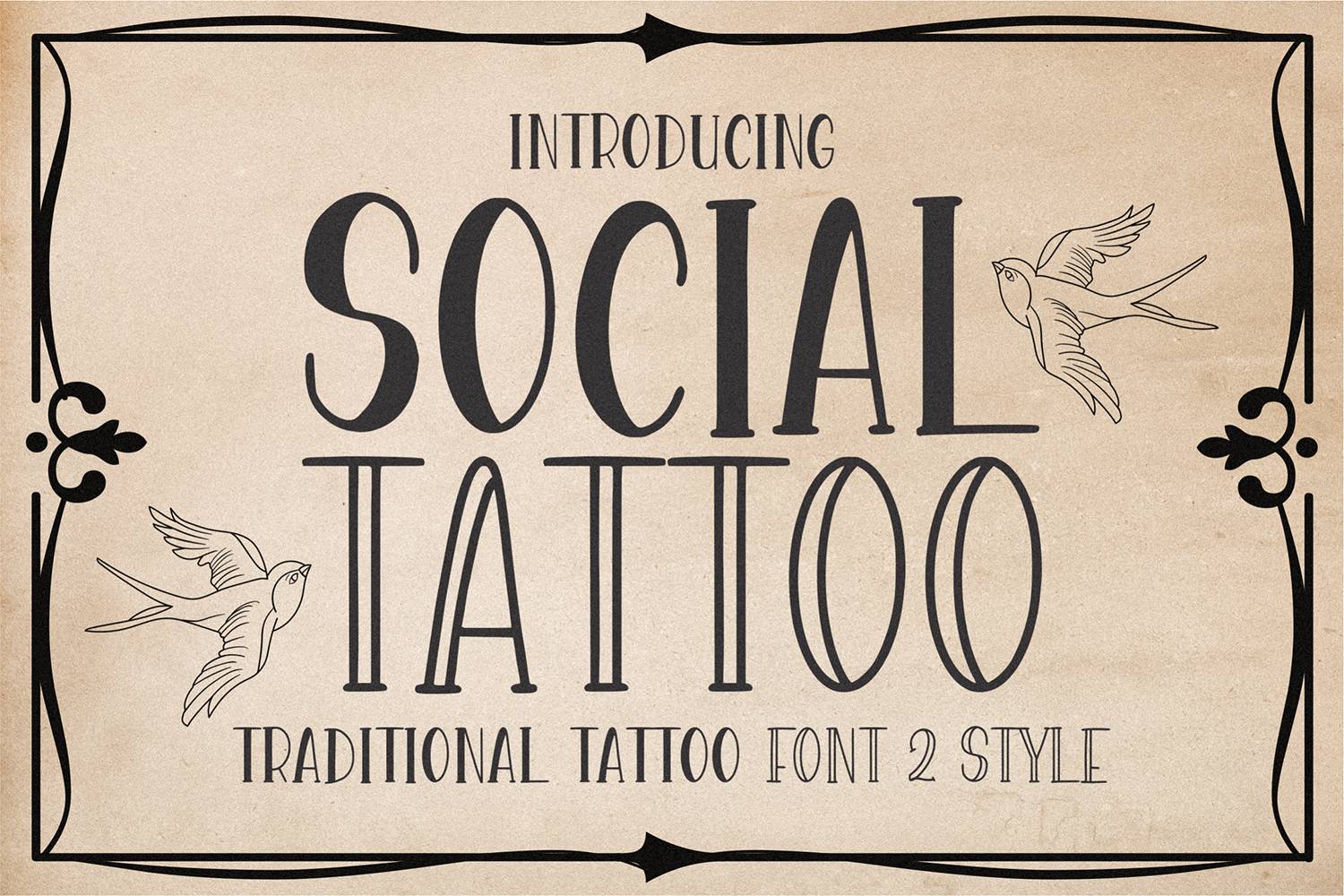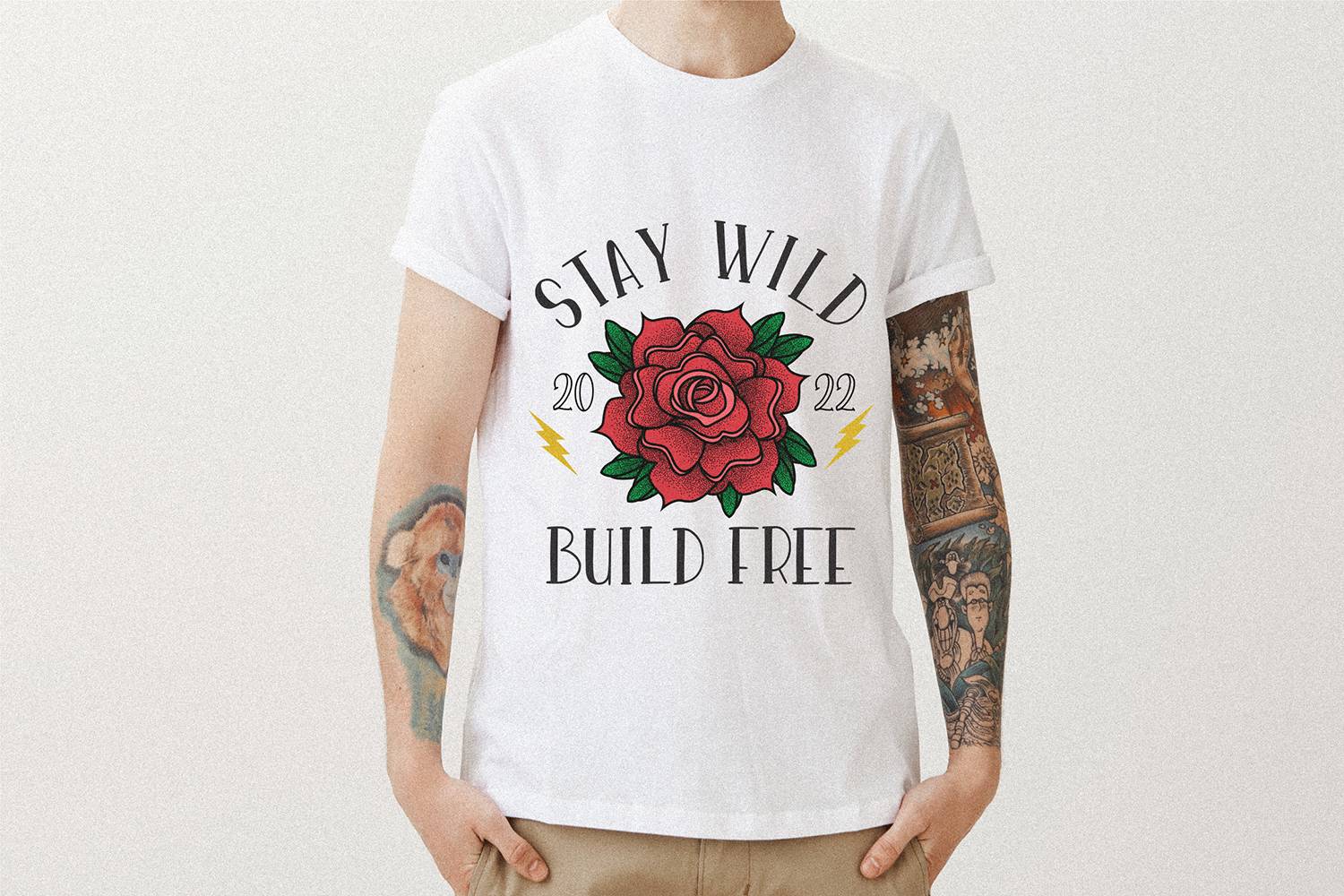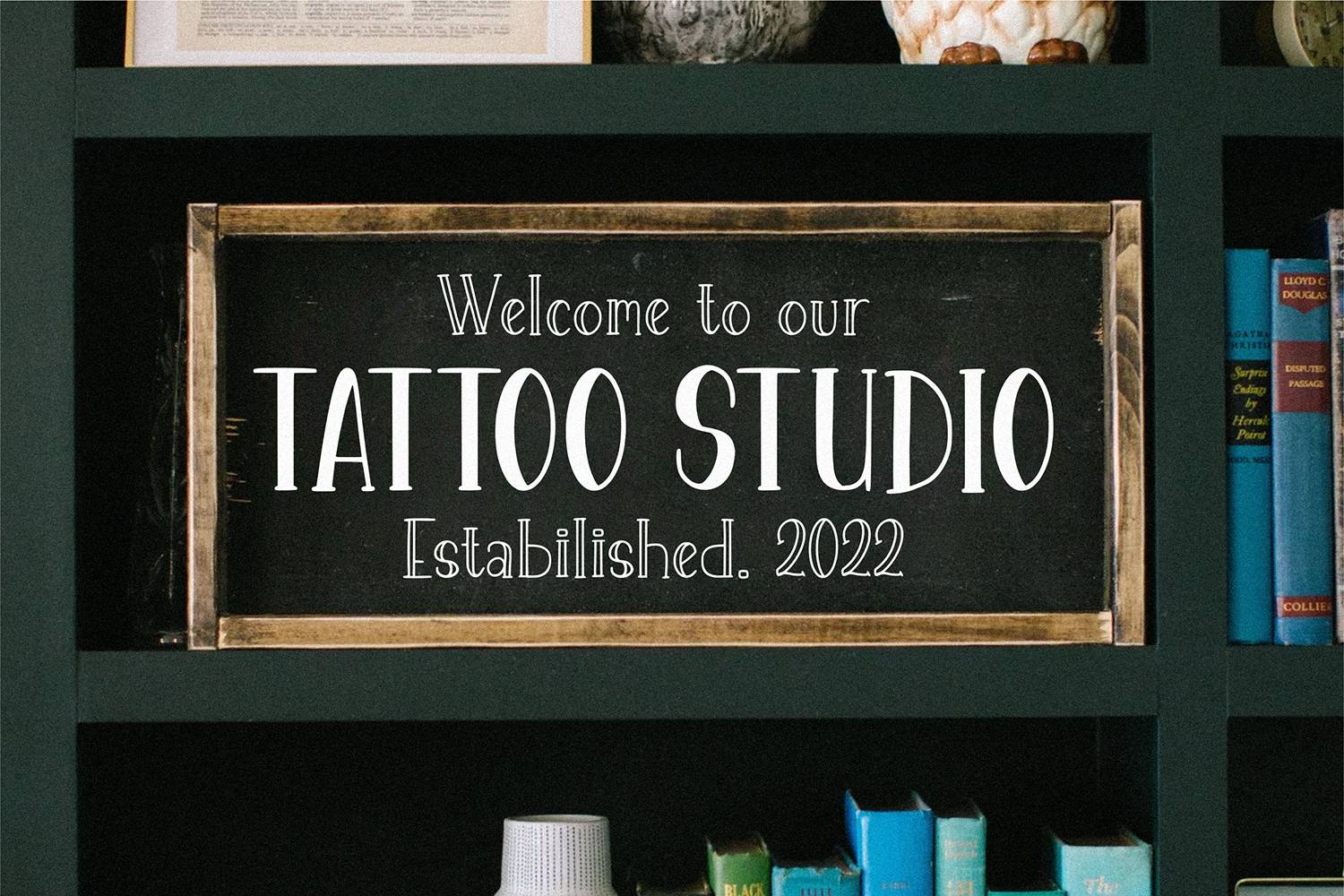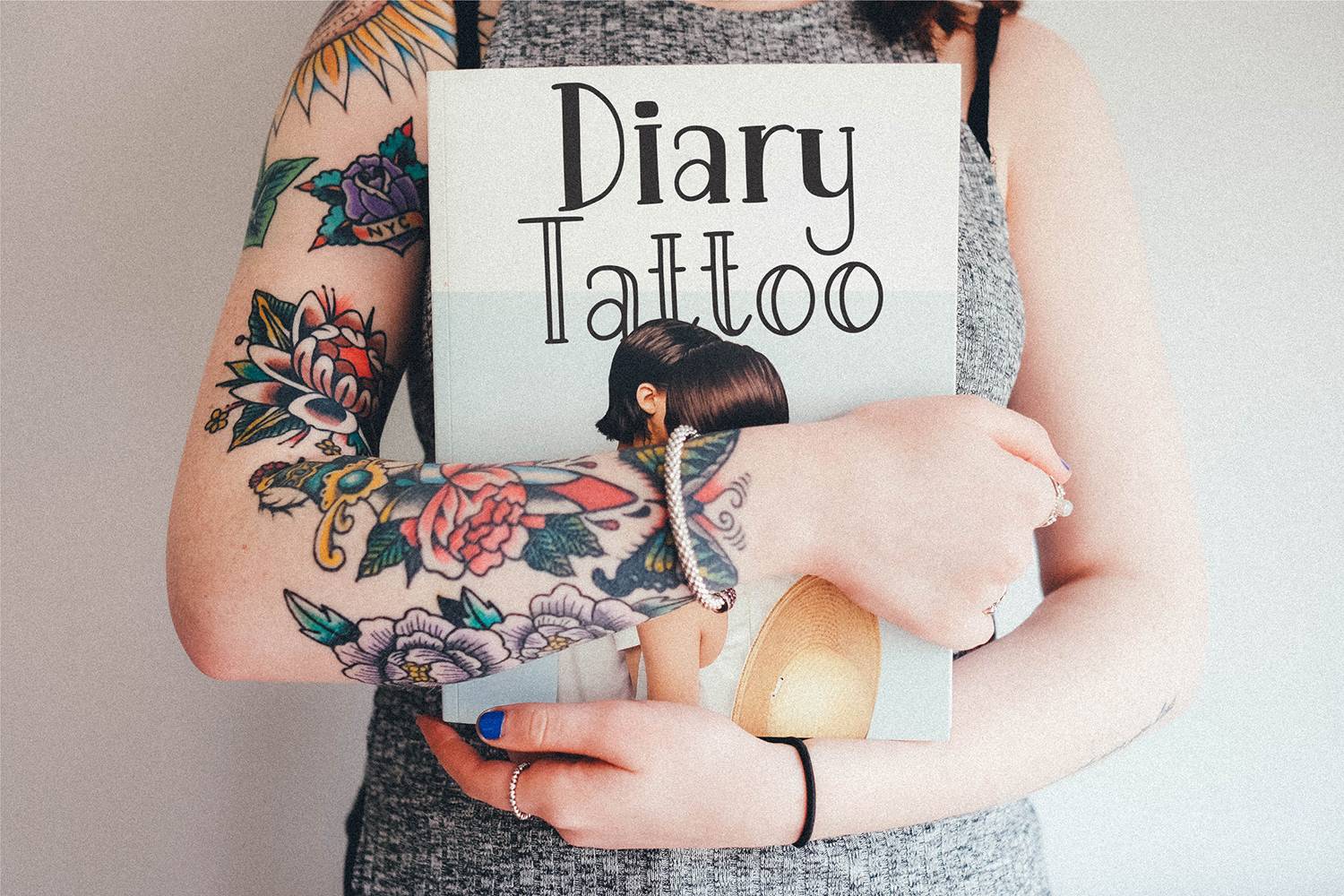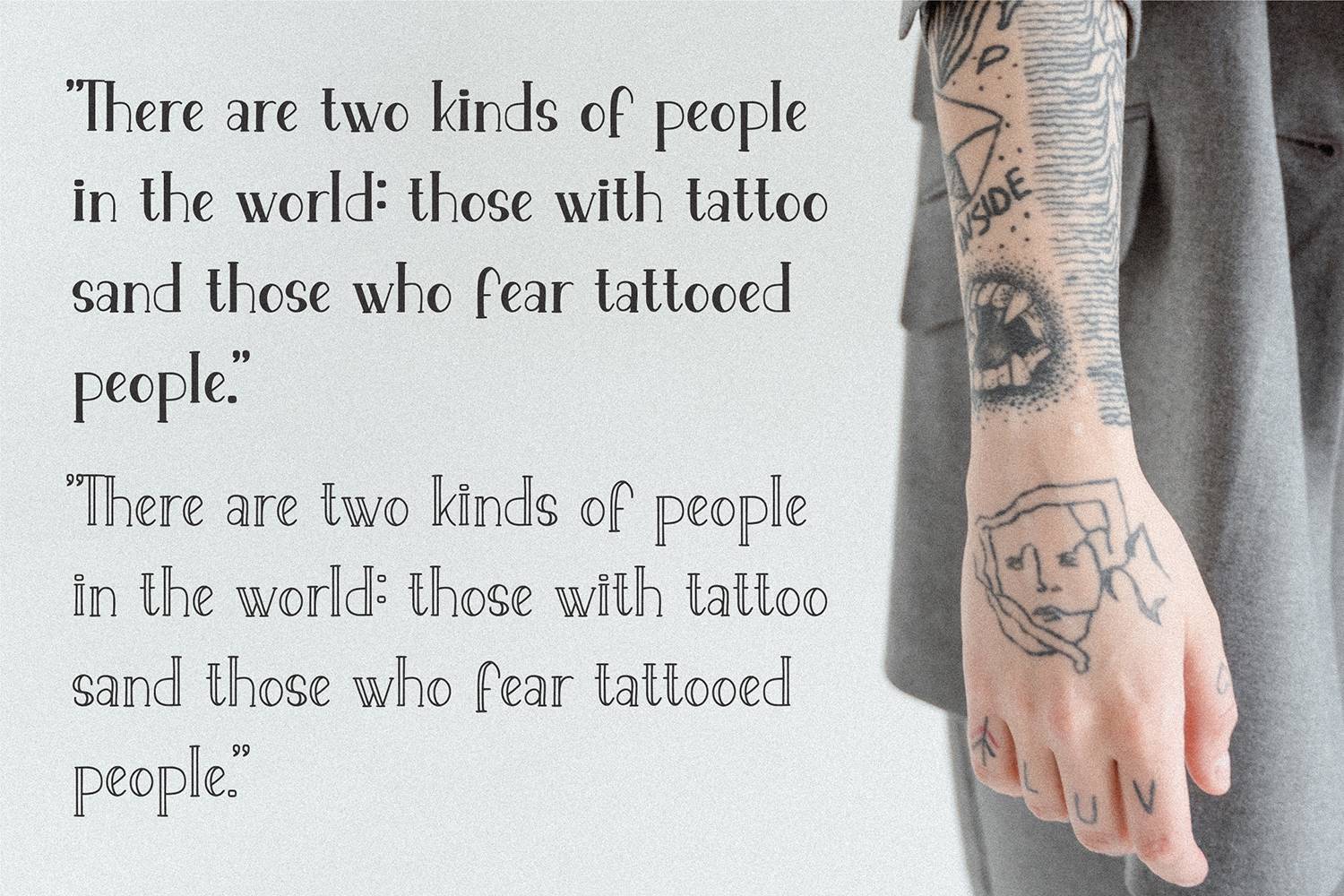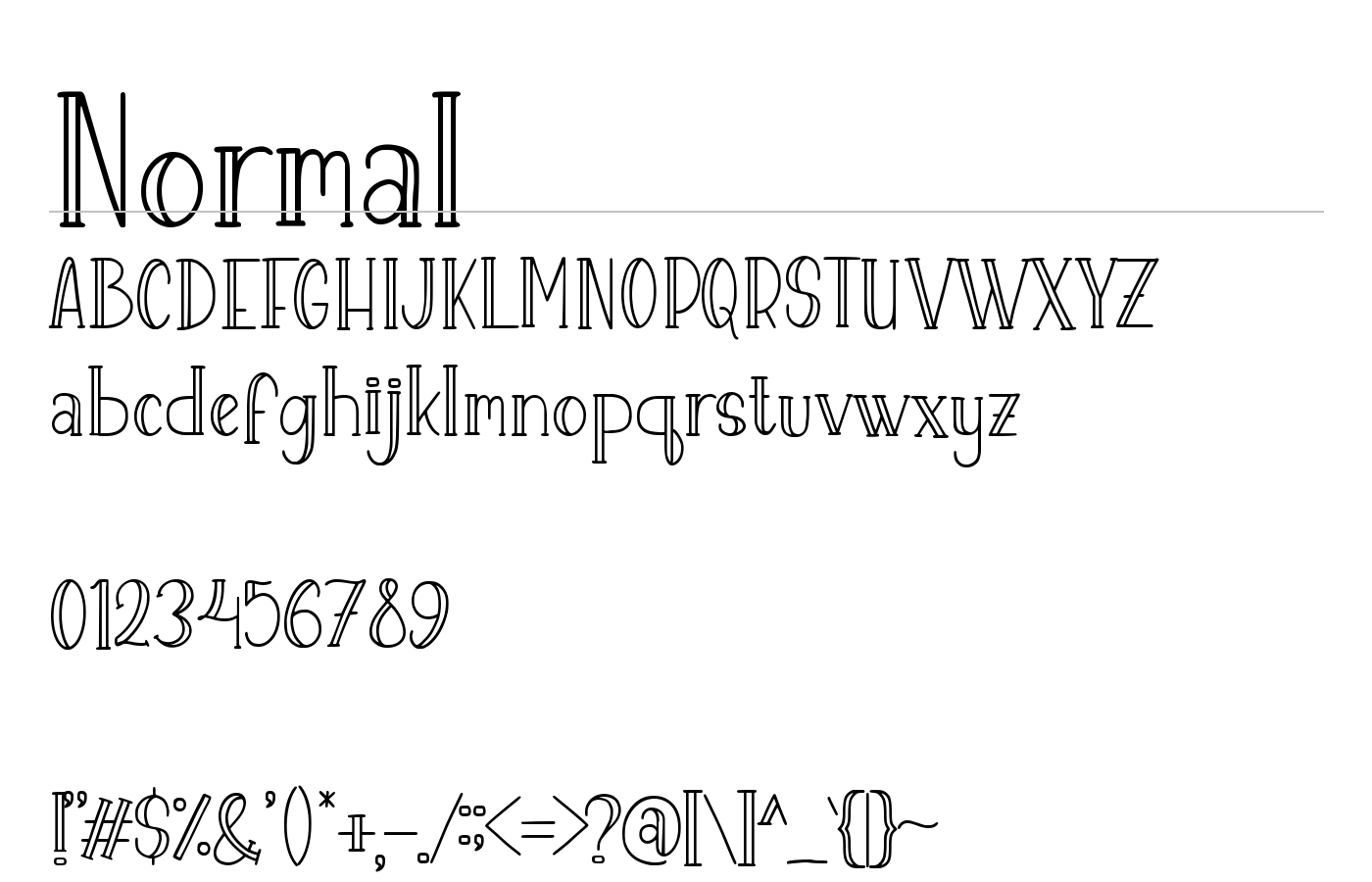
Social Tattoo is a slender, tall serif font with a playful vintage vibe, featuring thin strokes and delicate, bracketed serifs that add elegance without heaviness. Its narrow letterforms and unique character details give it a quirky yet refined personality, making it an excellent choice for stylish headlines, creative branding, and decorative uses where a distinctive, slightly retro look is desired. This font works well in projects that want to balance sophistication with artistic flair, such as fashion editorials, logos, and upscale packaging.
Social Tattoo Font
About Social Tattoo Font